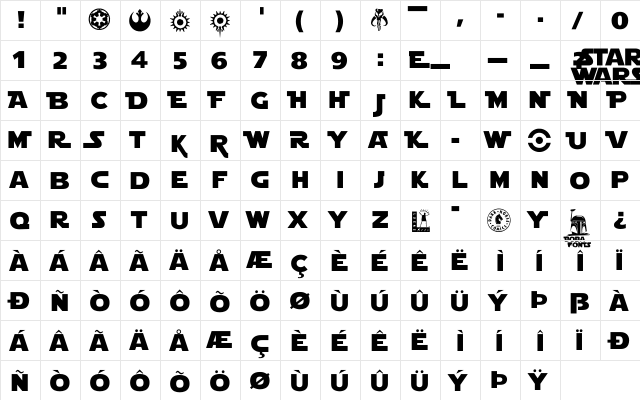
Star Jedi Regular
Design Context for Star Jedi Typeface
Star Jedi is a composed and adaptable typeface that performs quietly and consistently across a wide range of design contexts.